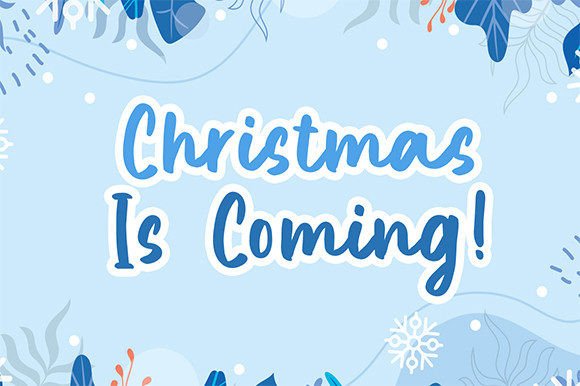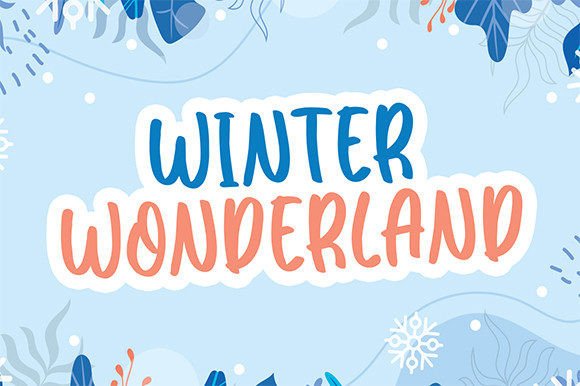
About Winter Christmas Font
Winter Christmas font brings a delightful and festive spirit to any design. This cute and jolly script captures the warmth and joy of the holiday season, making it an ideal choice for children’s activities, Christmas cards, and all your festive projects. Its playful curves and authentic handwritten style add a genuine touch that will make your designs truly stand out.
Perfect for Children’s Holiday Activities
Winter Christmas font shines when used for children’s holiday projects. Whether you’re creating activity sheets, classroom decorations, or holiday party invites, this font’s cheerful and friendly look instantly appeals to young audiences. The fun, flowing characters help set a joyful tone that inspires creativity and excitement.
Ideal for Festive Cards and Invitations
This font is also perfect for designing Christmas cards and invitations. Its whimsical style adds warmth and personality, helping to convey heartfelt messages during the holiday season. Whether for family greetings or community events, Winter Christmasfont enhances the festive mood with its charming appeal.
Versatile for Holiday Branding and Decorations
Beyond children’s crafts and cards, Winter Christmasfont works wonderfully for seasonal branding and decorations. Use it for shop signage, packaging, or social media posts to create an inviting and merry atmosphere. The font’s playful style makes it easy to connect with audiences looking for that special holiday cheer.
Handcrafted Style with Playful Energy
Winter Christmasfont combines a handcrafted script look with energetic strokes that feel both authentic and lively. This balance makes it perfect for designers wanting to add a joyful and genuine flair to their Christmas-themed work without sacrificing readability.
In summary, Winter Christmasfont is a cute, jolly script typeface perfect for children’s activities, festive cards, and holiday branding. Its playful and authentic style adds warmth and cheer to every project, making it a must-have for your seasonal design toolkit.